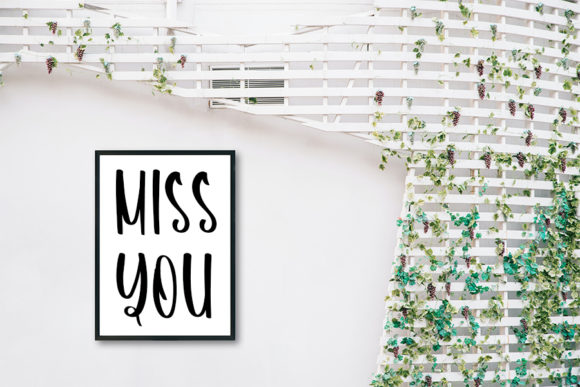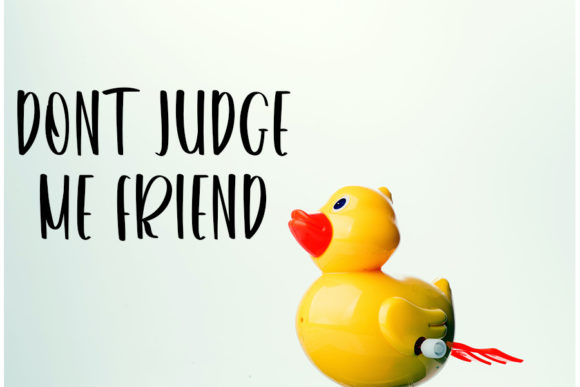
Baby Vintage Font
About Baby Vintage Font
Baby Vintage is a cool, casual and relaxed handwritten font. Whimsical and a bit quirky, this font will brighten up each of your designs. Add it confidently to your projects, and you will love the results.